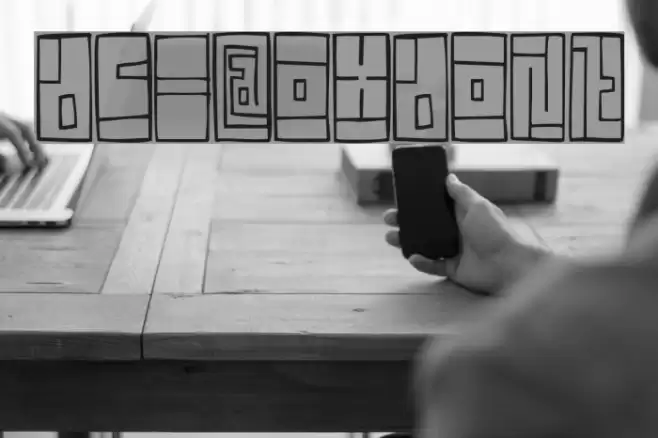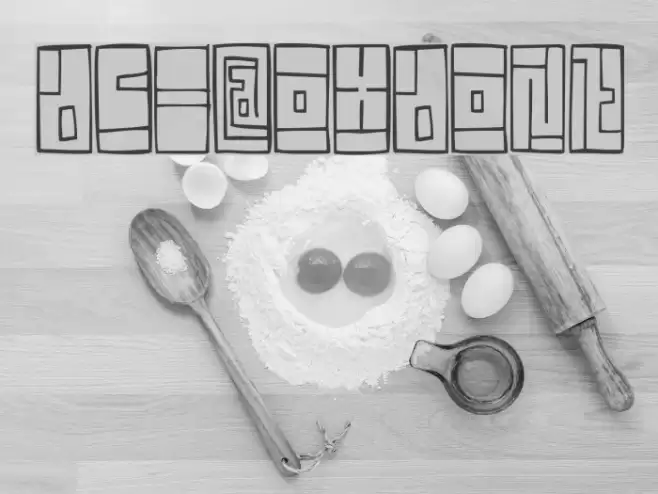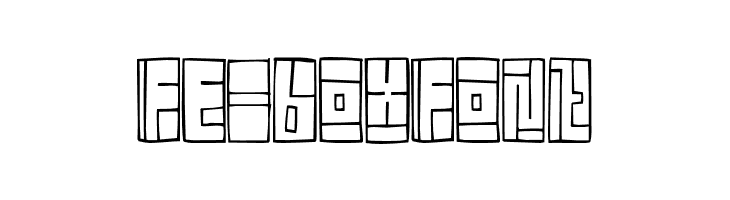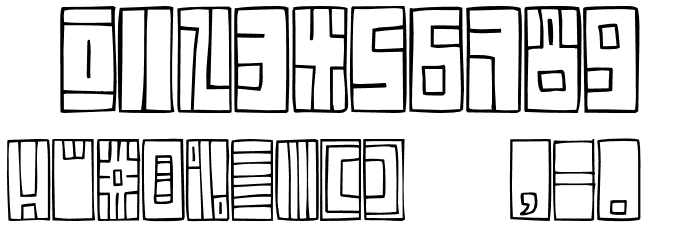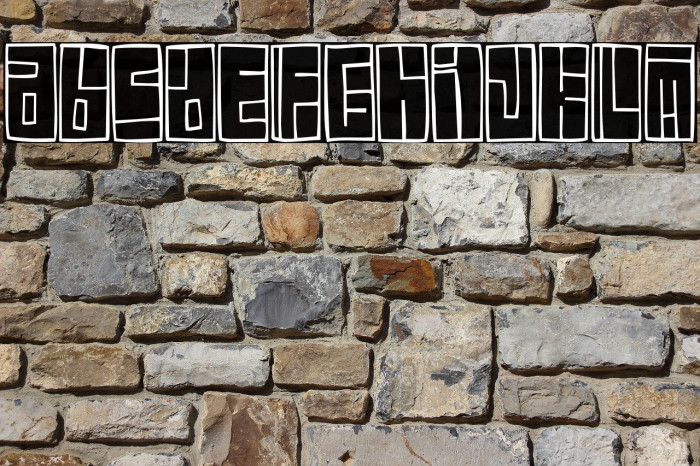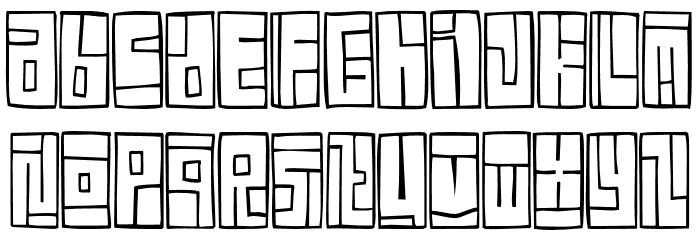
FE-BoxFont Font
FE-BoxFont Description
This font features a unique, boxy design where each character is encapsulated within a rectangular frame. The lines are bold and consistent, creating a striking visual impact. The geometric style gives it a modern and edgy appearance, making it stand out in any design. The uppercase and lowercase letters maintain a uniform height, contributing to a cohesive look. Numbers and special characters follow the same boxed pattern, ensuring uniformity across all elements. This font's distinct style makes it ideal for projects that require a bold, unconventional aesthetic.
A bold, boxy font with geometric, rectangular frames around each character from Decorative fonts.
- Proposed Projects: Ideal for posters, album covers, video game graphics, and modern branding projects.